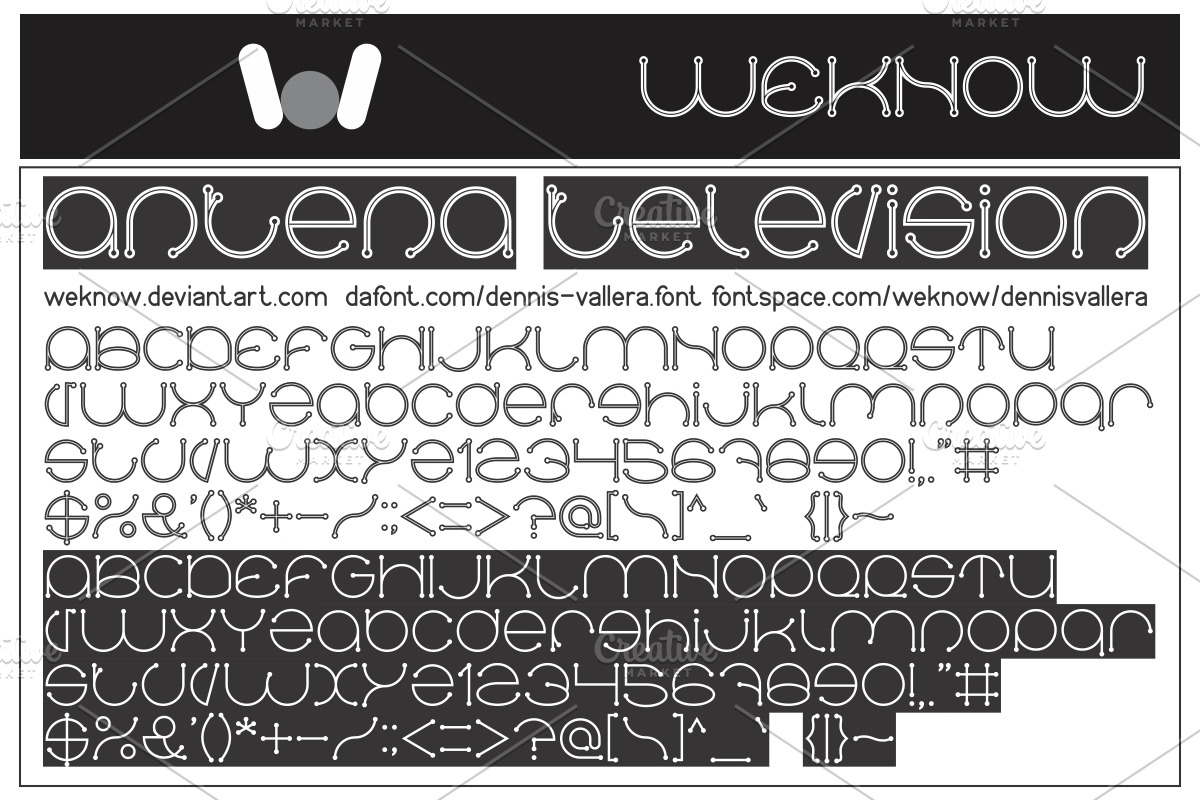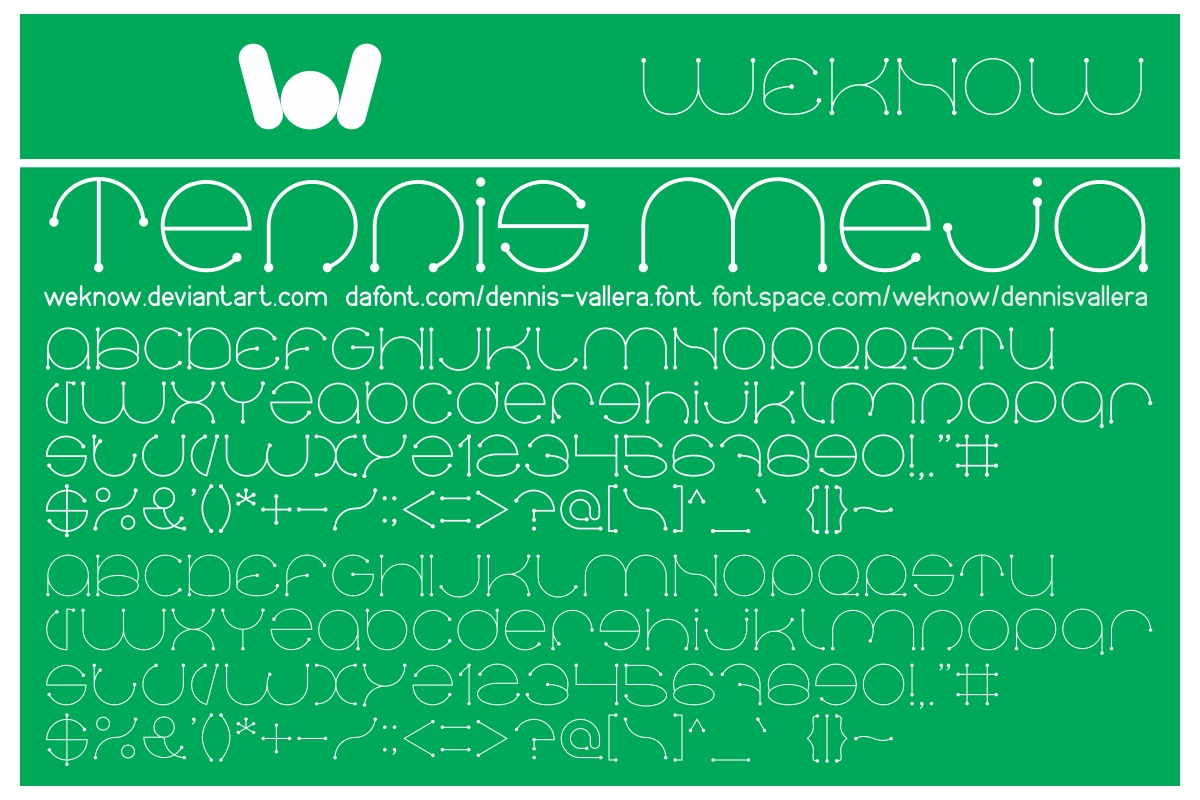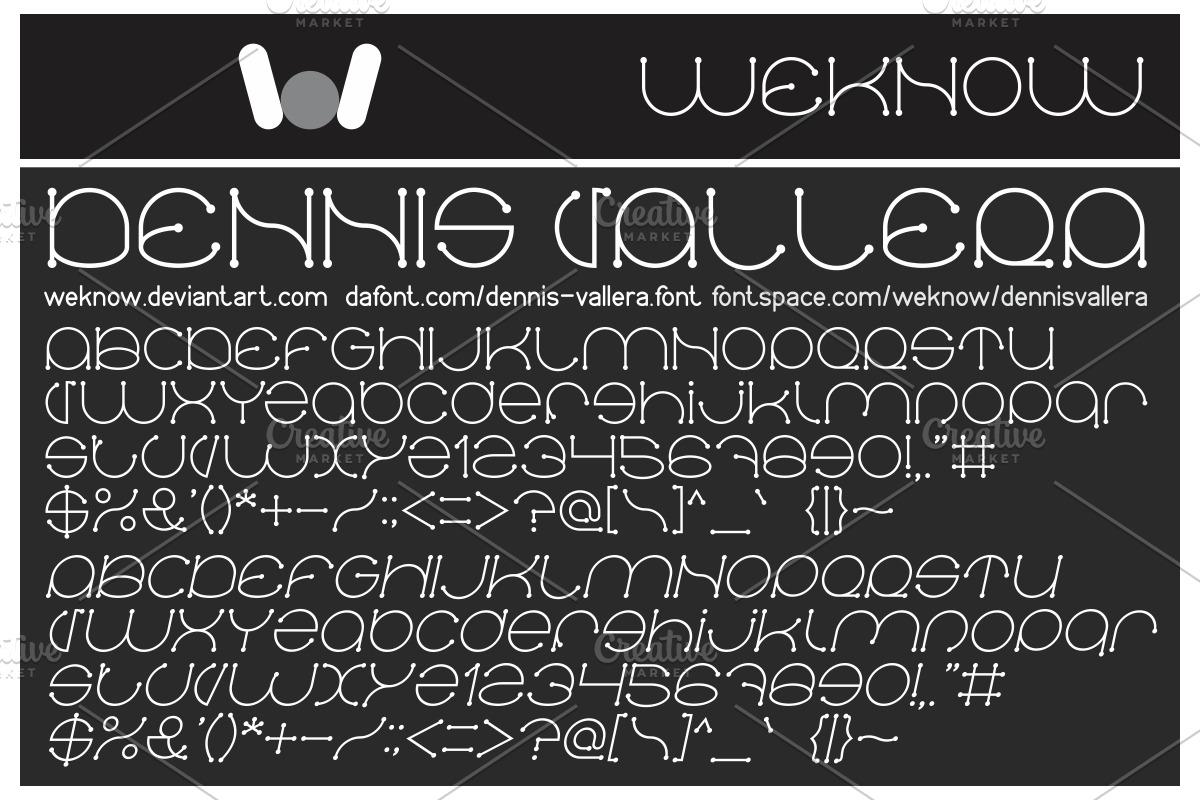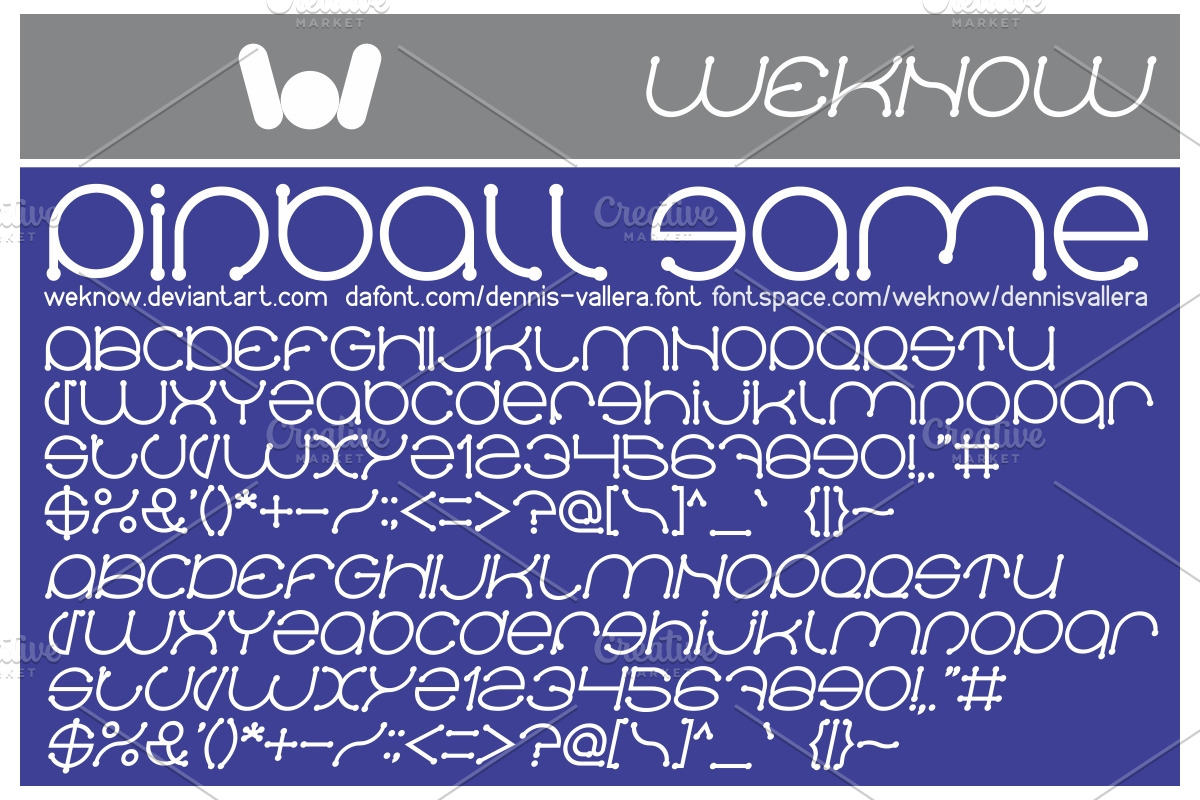
dennis vallera font
Why dennis vallera font is worth a look
dennis vallera font by weknow fits naturally into Branding, posters, packaging, typography.